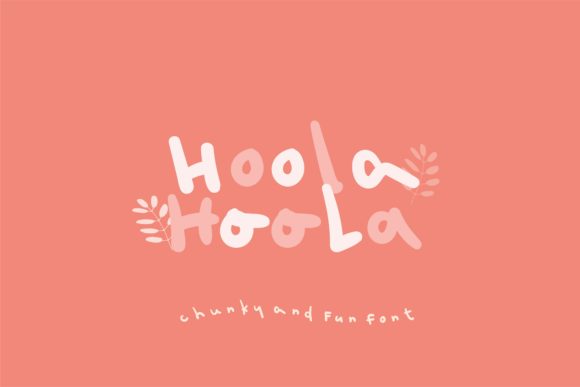
Introducing Hoola Font, the ultimate font for modern logos and branding projects. With its bold and playful characters, Hoola will bring a smile to your designs and leave a lasting impression on your audience.
Hoola is a charming, chunky lettered handwritten font that exudes joy and creativity. Its playful style adds a touch of whimsy and elegance to any project, whether it's a logo, product packaging, invitation, magazine, or t-shirt design.
With Hoola, your designs will come alive with personality and charm. Its unique and eye-catching characters will grab attention and make your projects stand out. It's perfect for creating logos that pop, packaging that captivates, and invitations that truly shine.
Hoola's uneven and playful style is perfect for creating a sense of movement and energy in your designs. It's a font that seems to dance on the page, adding a touch of magic and wonder to your creations.
Whether you're a seasoned designer or just starting out, Hoola Font is the perfect choice for adding a touch of fun and personality to your projects. Its versatile style makes it suitable for a wide range of applications, and its easy-to-use format makes it a breeze to work with.